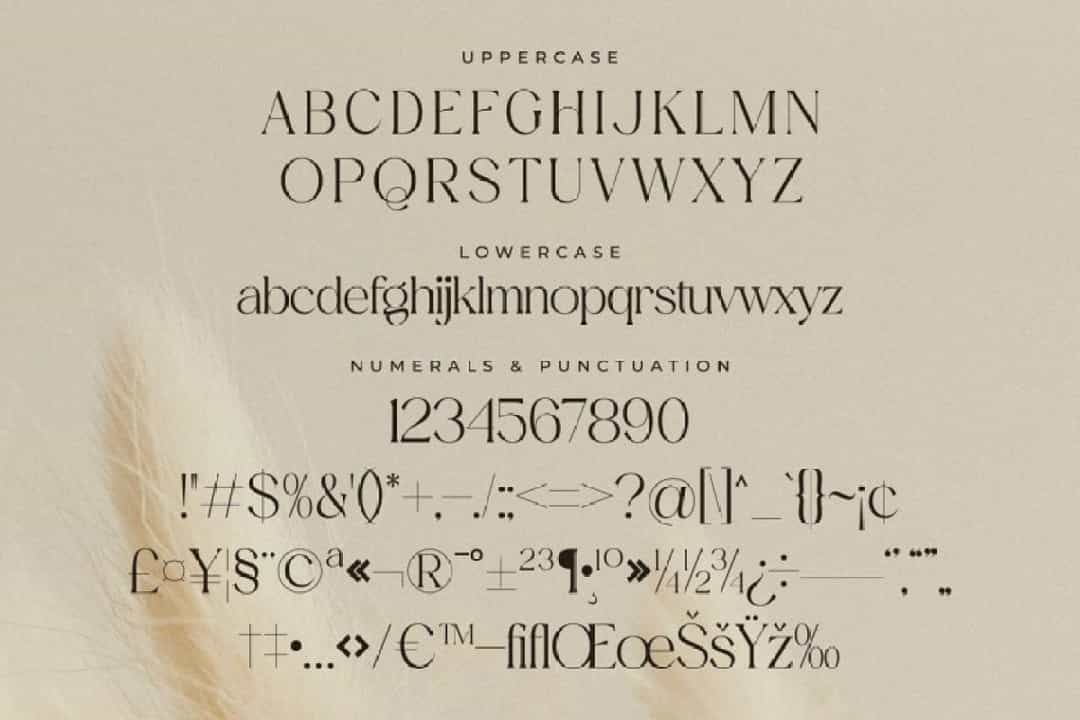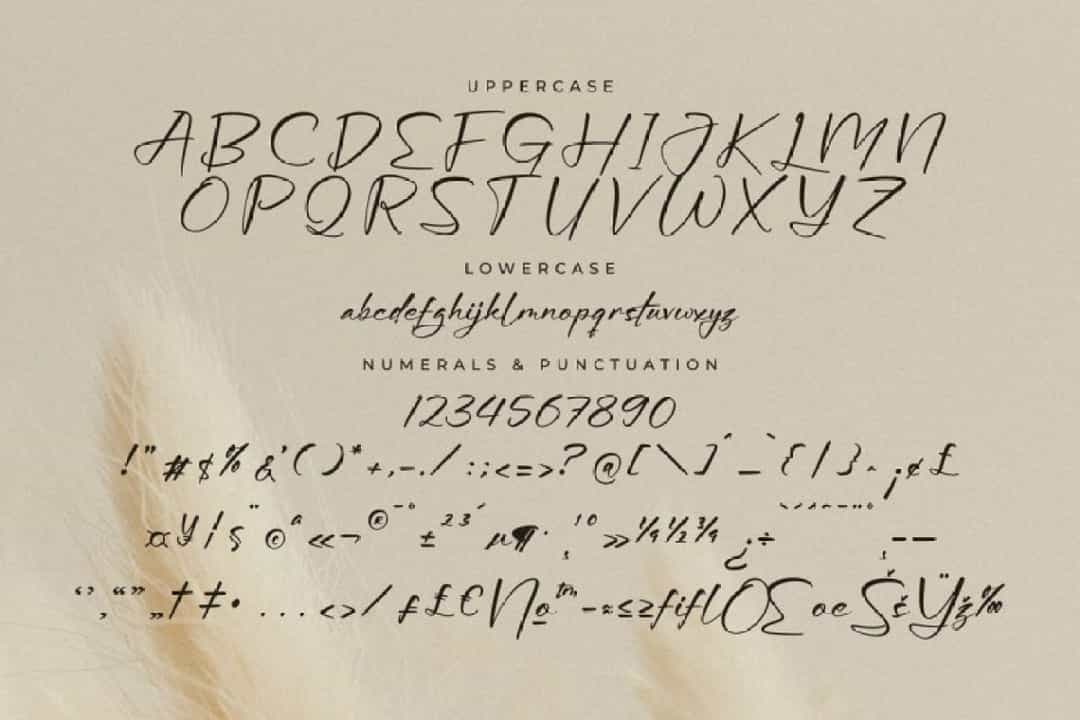
Discover Aurora Magnollia Font, part of the Handwritten Serif collection—a versatile and unique font perfect for adding a personal touch to your projects. Download it for free and enjoy crafting designs with style, from invitations to social media posts. This font is available exclusively for personal use, giving you the freedom to create without limits. Unlock your creativity with Aurora Magnollia Font today!
Aurora Magnolia Font Duo is an exquisite combination of fonts that combines traditional serifs and elegant flow script. Perfect for both traditional or contemporary designs, its versatility ensures aesthetic results for any project.